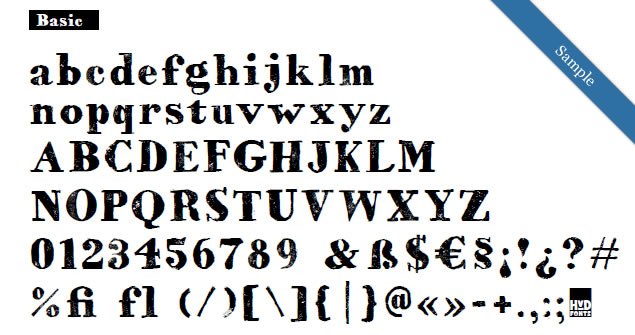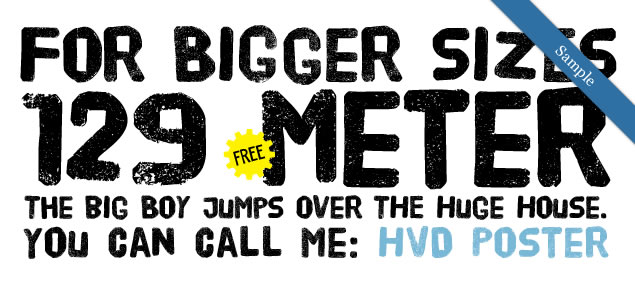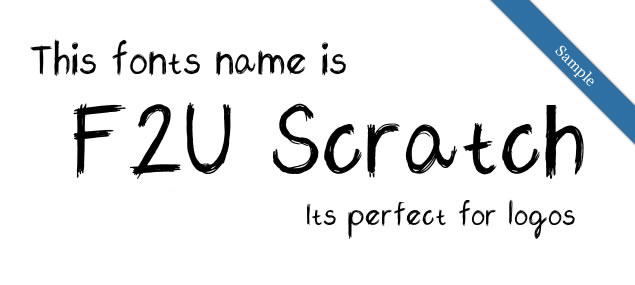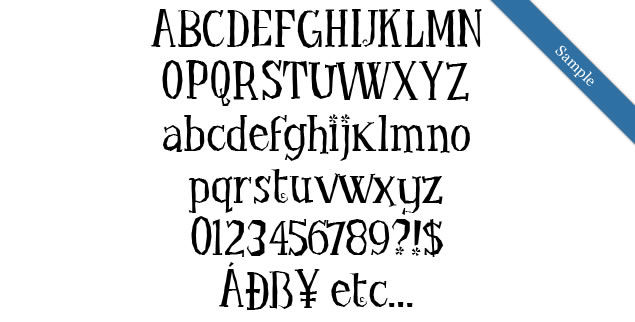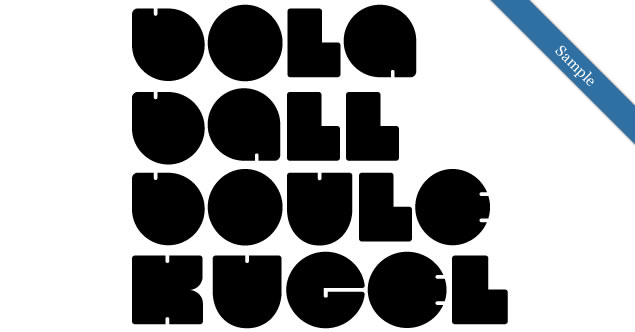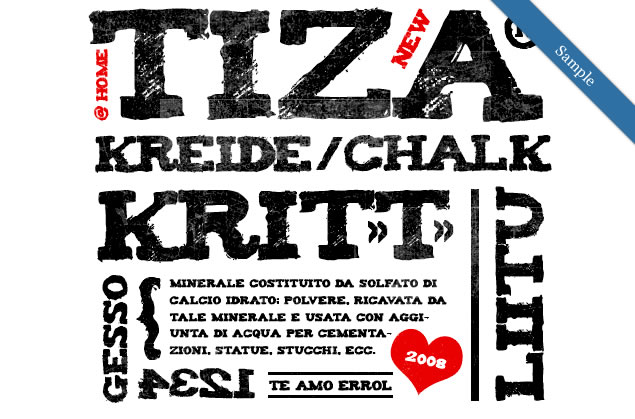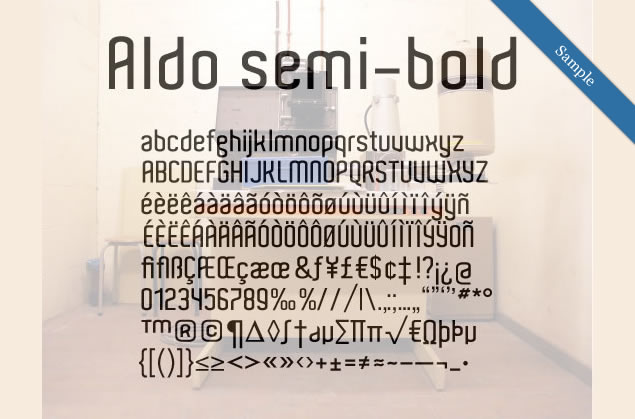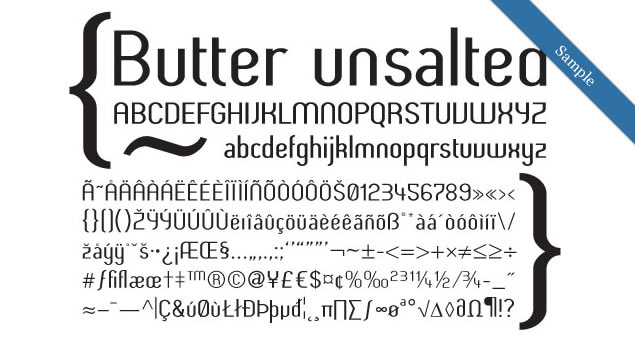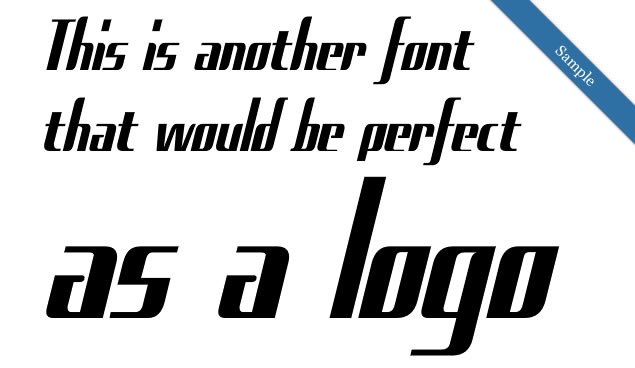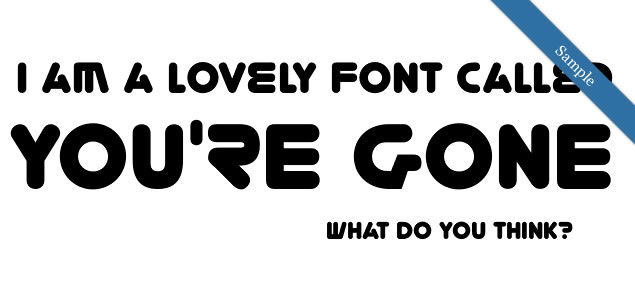
Top 20 Free Fonts for Distinctive Headlines and Titles
Whether you are reading a printed magazine or a web article it is very rarely the content that draws you in at first, the hook is always the title or the headline. A well written and thought out title or headline are fundamental, it has to not only describe with very few words the articles content but also has to be formatted in a way that it draws the attention of your readers and is a seemingly must read – a difficult combination to achieve.
There are many ways of of making your headlines that little bit more distinctive, none are as important as choosing the correct font. Most fonts can be big and bold, but finding one with a little bit of character that helps emphasize and describe the title and the content can be difficult.
With that in mind, Peter Olexa from Fonts2u has put together this article of his top 20 beautiful, professional and distinctive free fonts you shouldn’t be missing from your font library.
01 Diavolo
02 Fertigo
03 Museo
04 Comfortaa
05 Raspoutine Demi Bold
06 Gauntlet Classic
07 DuePuntoZero
08 Arista
09 Celeste Sans
10 HVD Bodedo
11 HVD Poster
12 F2U Scratch
13 Spin Cycle
14 Little Trouble Girl
15 Bola
16 Tiza
17 Aldo
18 Butter
19 Sad Films
20 You’re Gone